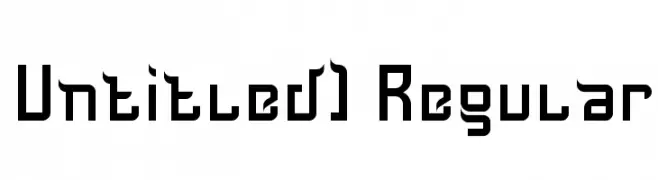
( ronjam - Ronja Melcker - byronjam.blogg.se/ )
A playful, whimsical font with thin lines and unique, irregular shapes.
( tudy1311 - Tudor Banciu - www.tudy1311.com )
A bold, decorative font with historical and artistic influences.
( tudy1311 - Tudor Banciu - www.tudy1311.com )
A bold, angular font with historical and modern influences, featuring sharp edges and subtle curves.
( Arantxa Mendoza )
A bold, geometric font with a modern, tech-inspired design.
( Barbara Lukasik - strony.wp.pl/wp/barbarja/fonty.html )
A modern, geometric font with bold curves and sharp angles.
( Buzzbum - buzzbum.tripod.com/ )
A playful, bubbly font with a fluid, molten appearance.
( Catrina )
A whimsical, handwritten font with flowing curves and artistic flair.
( Gulash - www.czcionki.com/gulash.html )
A playful, casual handwritten font with irregular, organic letterforms.
( Juhainah - www.fontspace.com/juhainah )
A classic serif font with elegant, flowing lines and a slight italic slant.
( MaximDude's Fonts - maximdude.deviantart.com )
A playful, informal handwritten font with uneven letterforms.